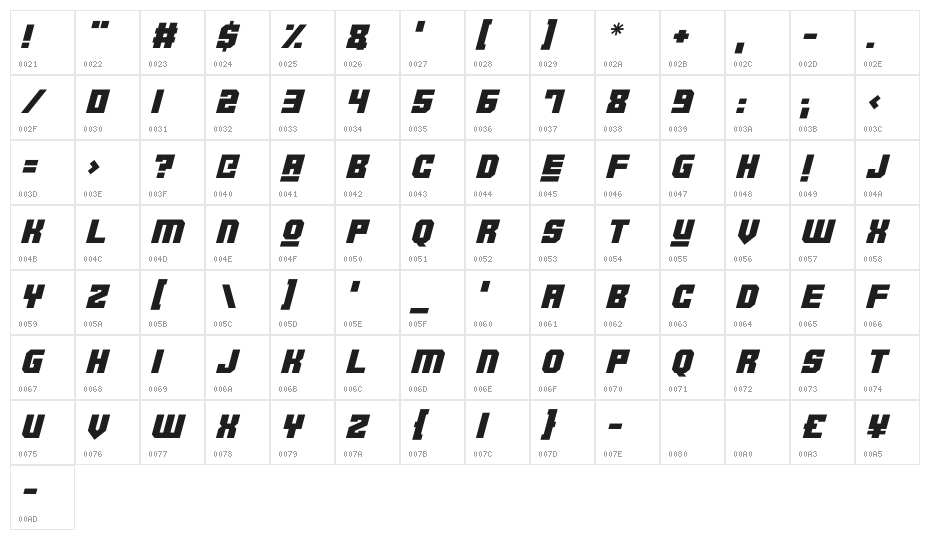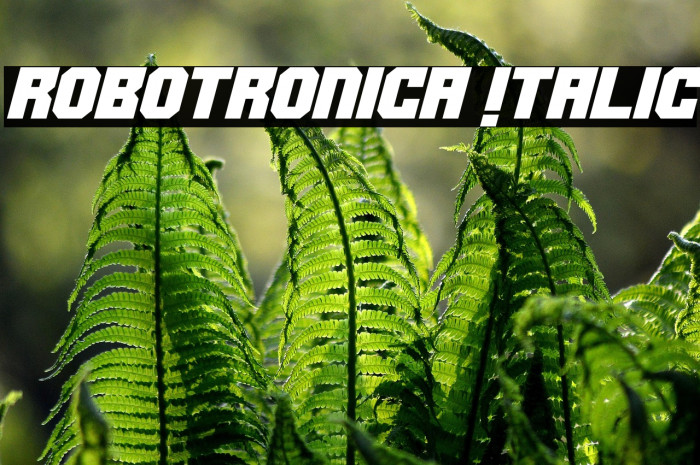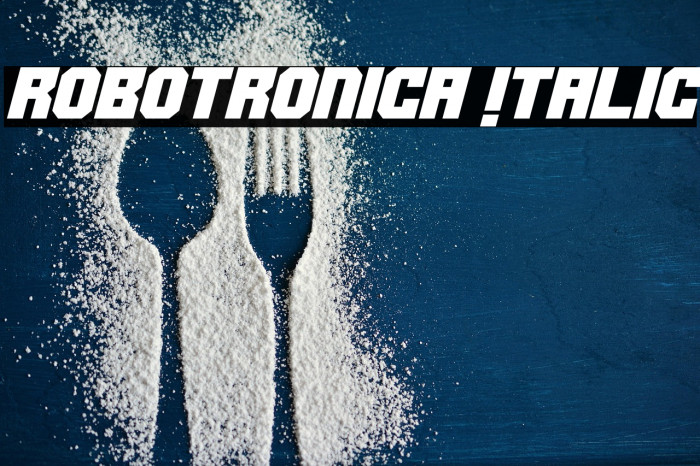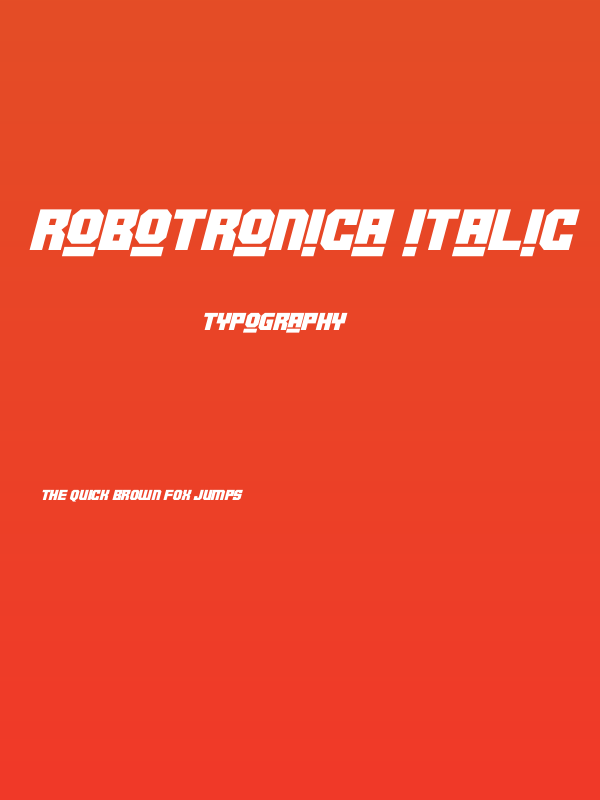
Robotronica Italic Font
Robotronica Italic Description
This font features a bold, futuristic design with a strong geometric influence. The characters are italicized, giving them a dynamic and forward-leaning appearance. Each letter is constructed with sharp angles and straight lines, creating a sense of movement and energy. The uppercase and lowercase letters maintain a consistent style, with the lowercase being slightly smaller but equally bold. The numbers follow the same angular design, ensuring uniformity across all characters. Special characters are included, matching the overall aesthetic with their bold and angular forms. This font is ideal for projects that require a modern, tech-inspired look.